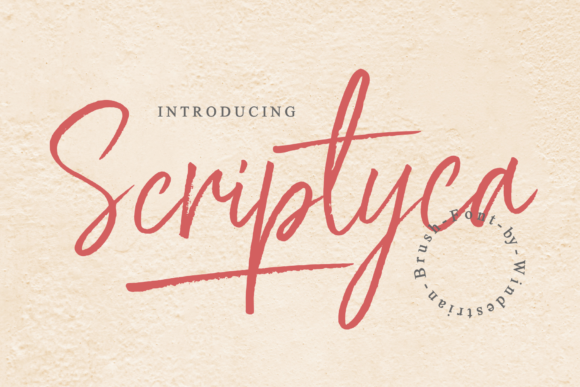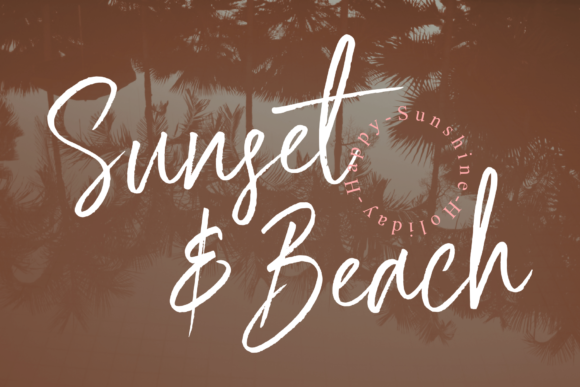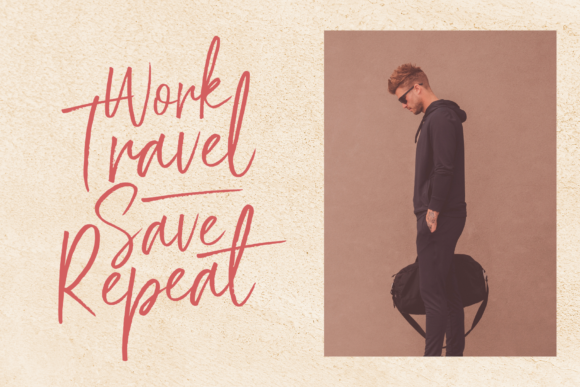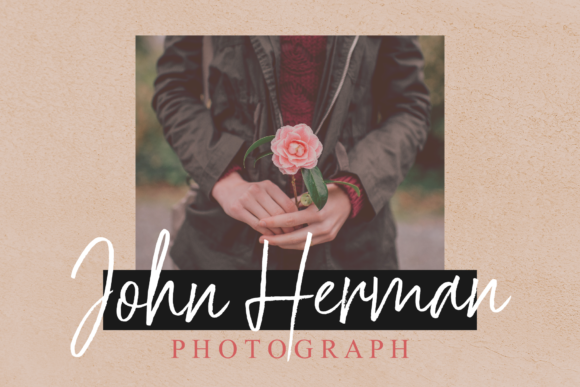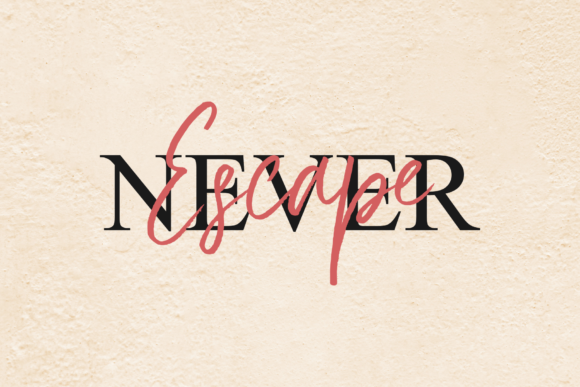
Scriptyca Font
About Scriptyca Font
Scriptyca is a handwritten font that is simple, bouncy, and cool. Fall in love with its casual & friendly appearance!